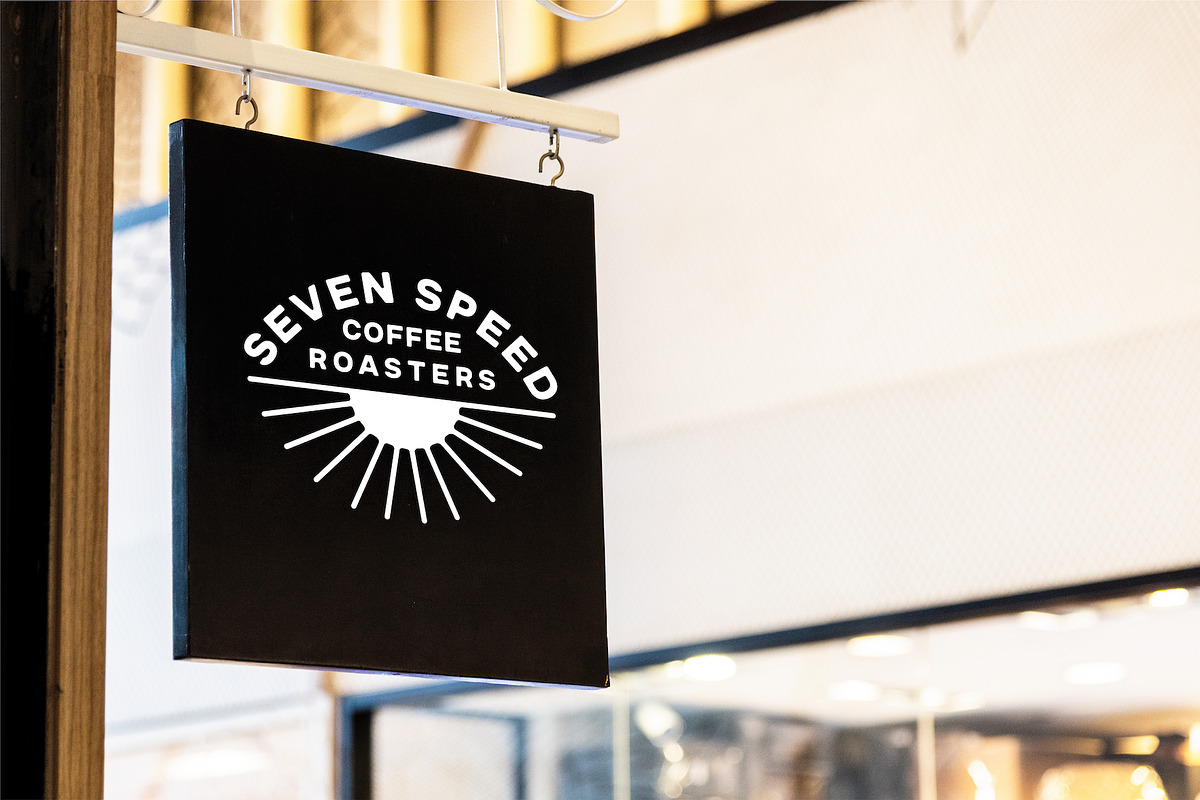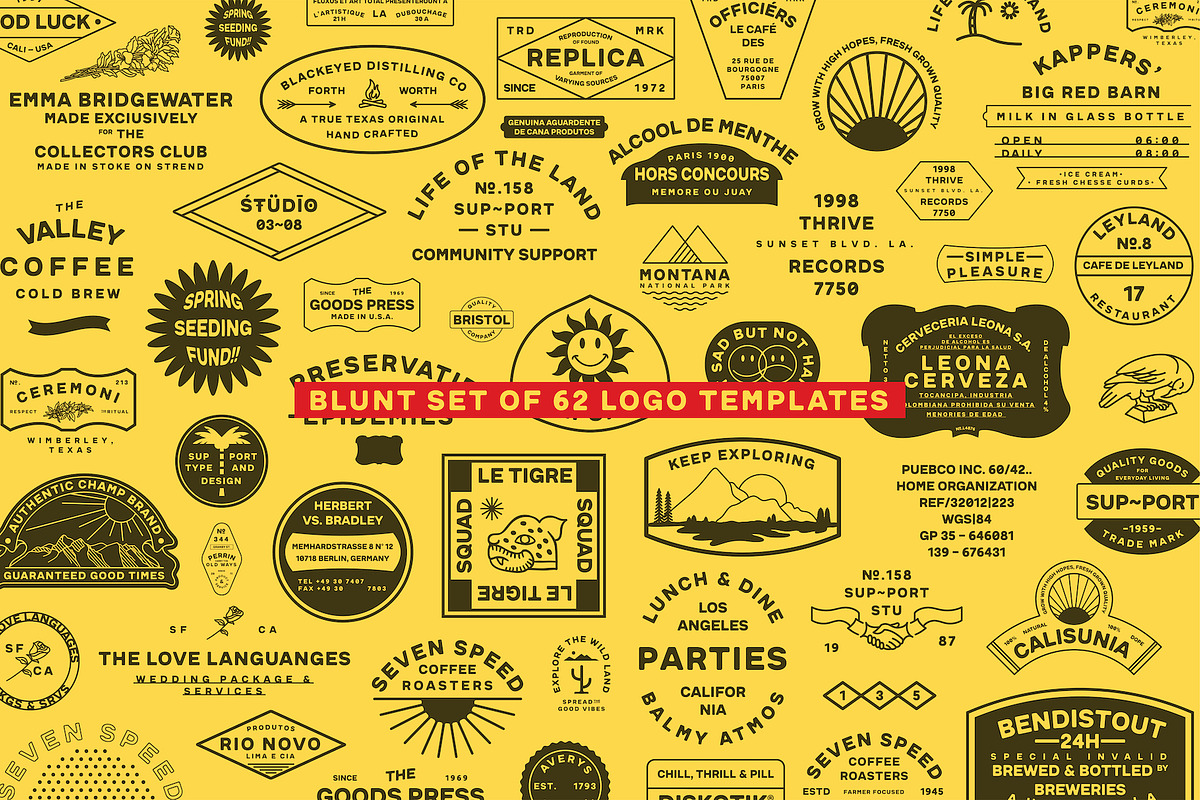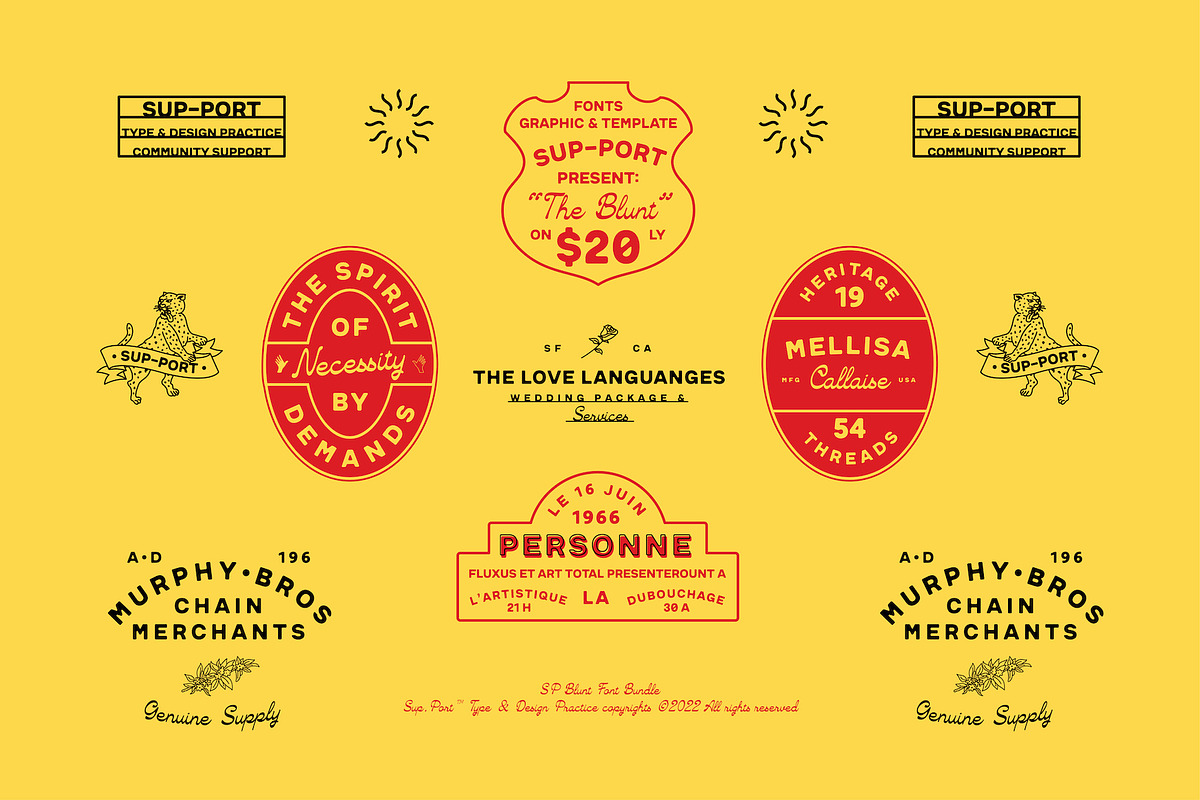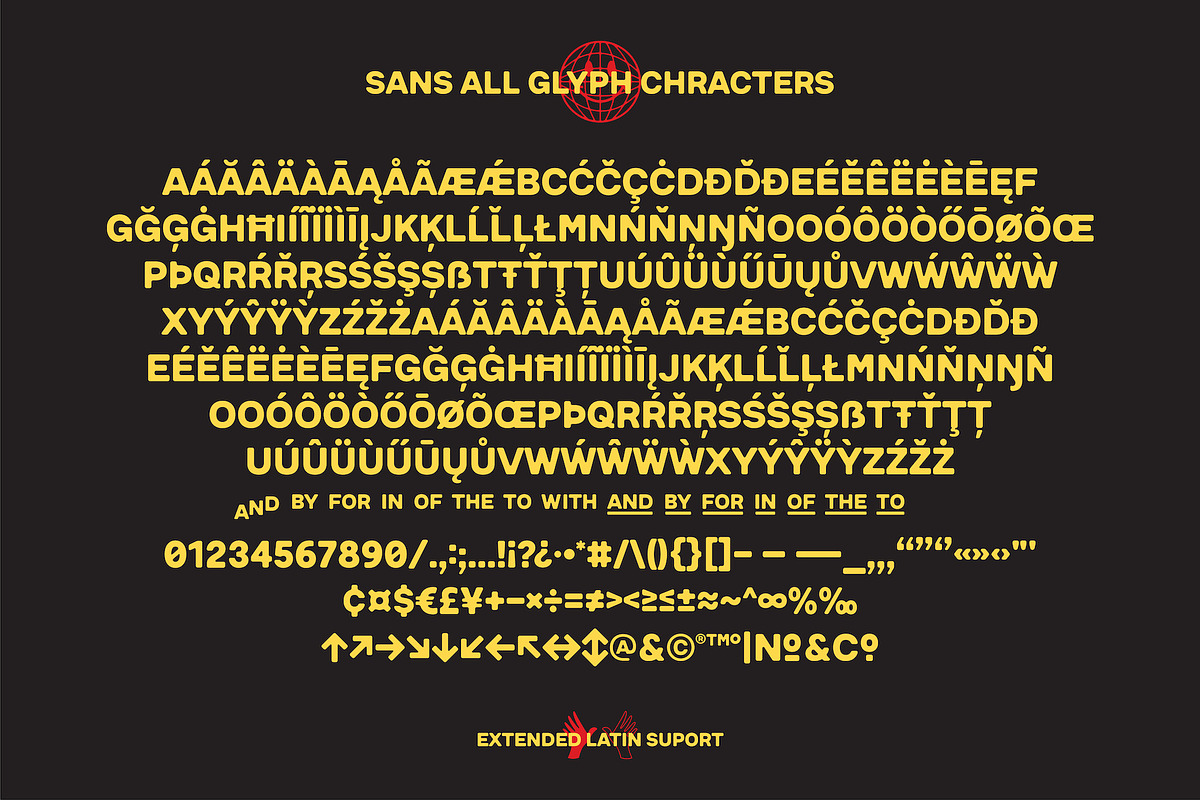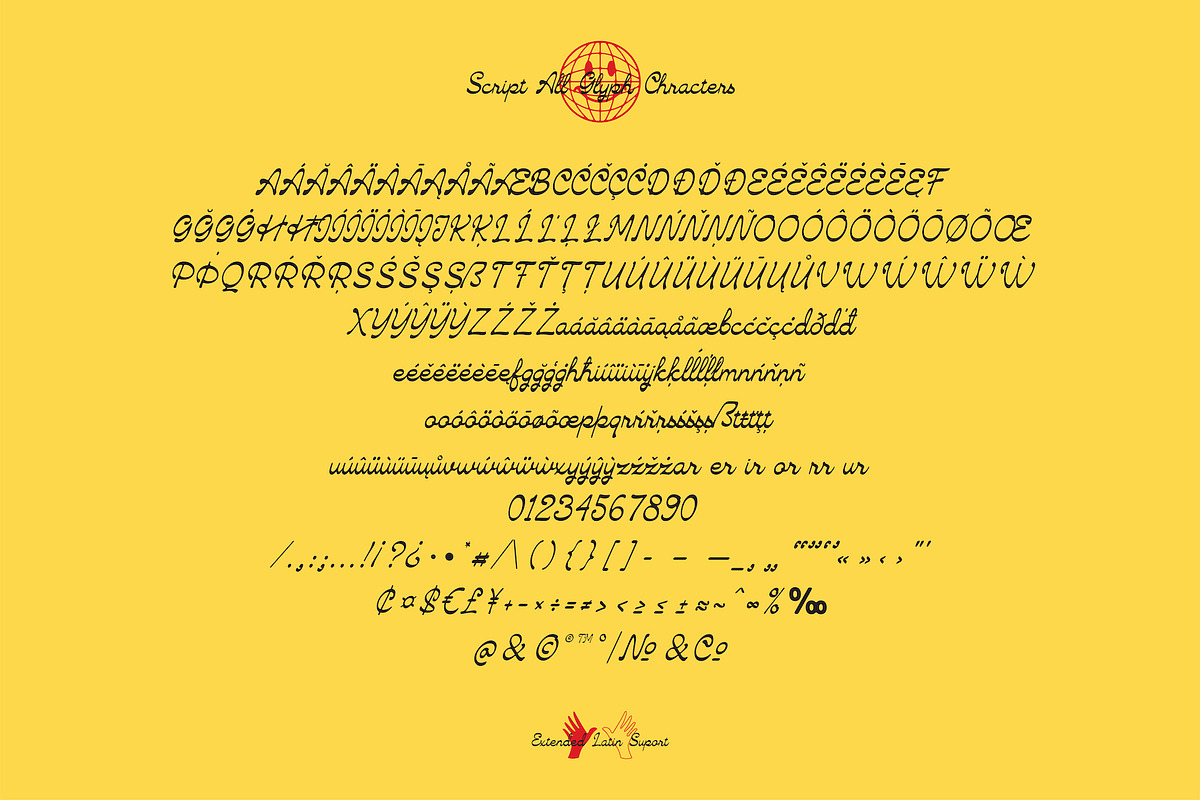
SP BLUNT BUNDLE PACK V02
Blunt Family is a combination of font and template + badge packages with a dynamic style, following the current trends, can include a modern vintage look, elegent look, and clean.
These bundle would be perfect to combine in your design. Typeface coming with opentype feature like ligature and ordinal, as well as multi-lingual support, currency figures, numerals, punctuation, arrow.
Suitable for logo, t-shirt, print, business cards, branding materials, nature photography, etc, made with carefully crafted.
Opentype Features :
- Ordinals
- Stylistic Set